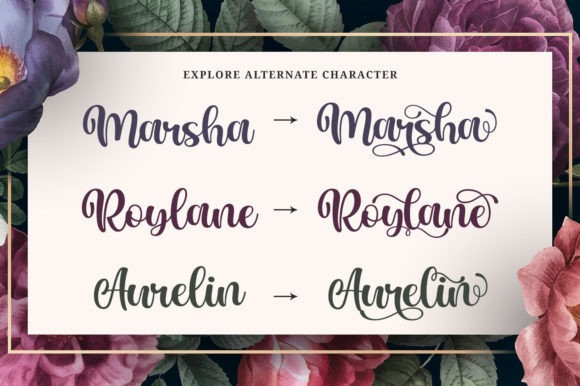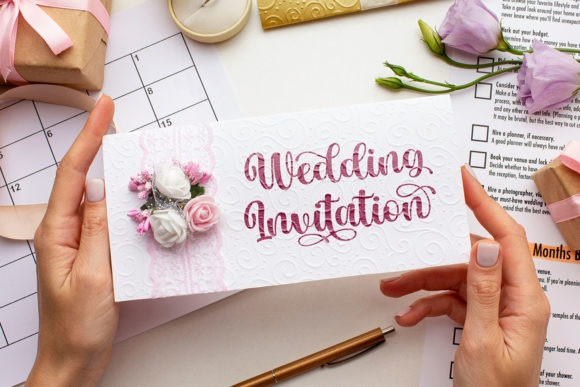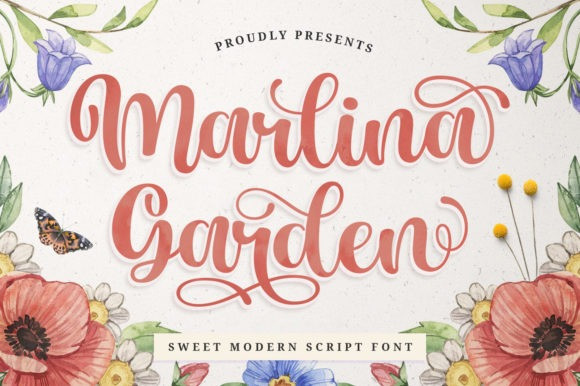
Marlina Garden Font
Marlina Garden Font is a romantic and sweet calligraphy typeface with characters that dance along the baseline. It will add a luxury spark to any design project that you wish to create! This font is PUA encoded which means you can access all of the amazing glyphs and ligatures with ease!